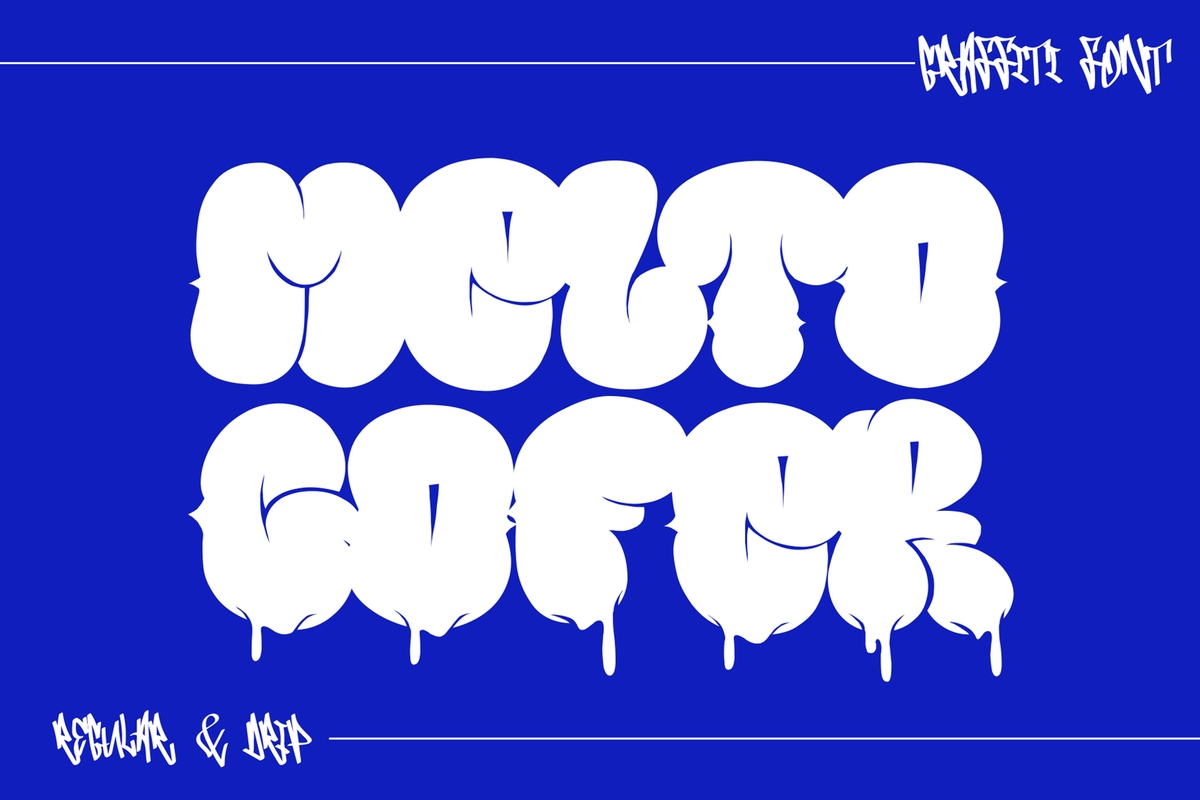
Melto Gofer Drip
Melto Gofer is a bold bubble graffiti display font inspired by classic throw-up graffiti styles and urban street culture. Designed with rounded shapes, thick outlines, and expressive dripping details, this typeface captures the raw and energetic essence of graffiti lettering while maintaining a playful and eye-catching appearance. The font comes with two distinct styles: Regular and Dripping. The Regular style features solid bubble letterforms with smooth curves and strong readability, making i